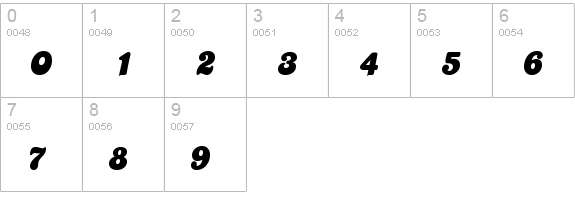
TR Candice Font Details
TR Candice is a stunning and elegant font that exudes sophistication and charm. With its delicate curves and stylish letterforms, this font is perfect for adding a touch of class to any design project. Whether you're creating invitations, logos, or branding materials, TR Candice is sure to make a lasting impression. The best part? TR Candice is completely free to download at FontsMarket.com. Now you can elevate your designs without breaking the bank. Don't miss out on this beautiful and versatile font - download TR Candice today and take your projects to the next level.